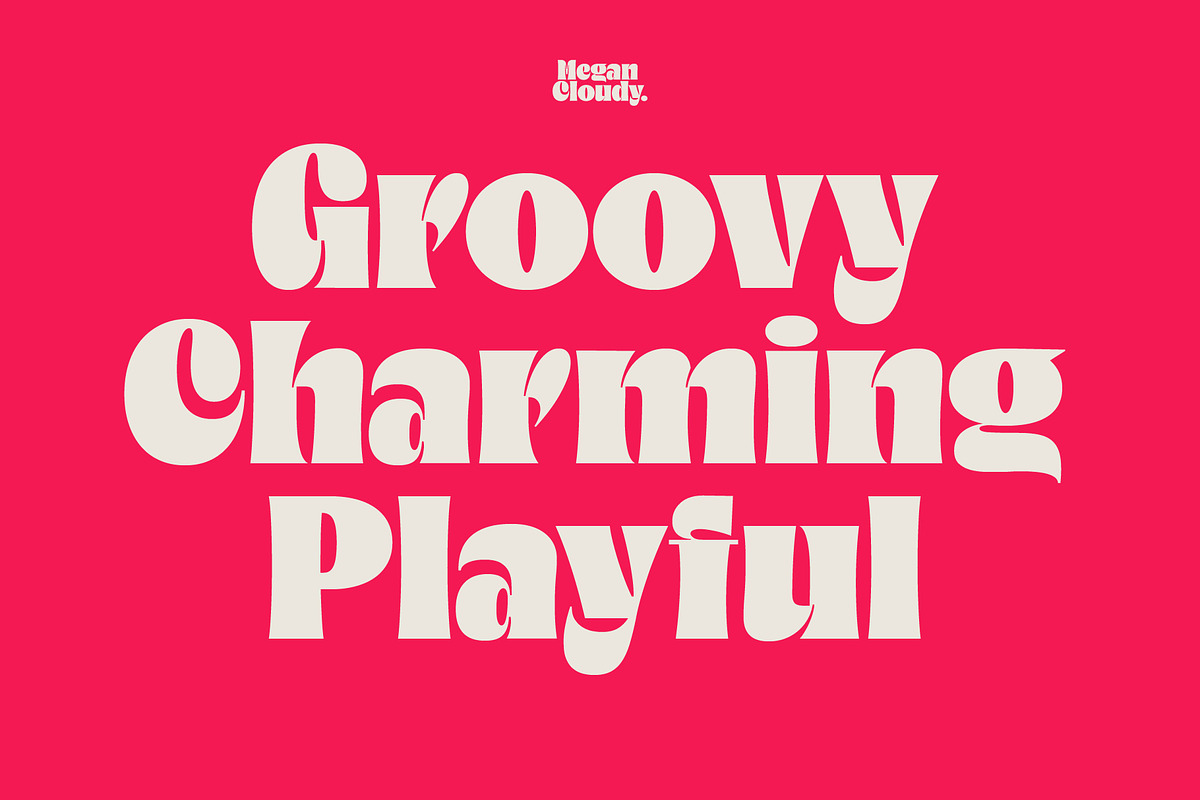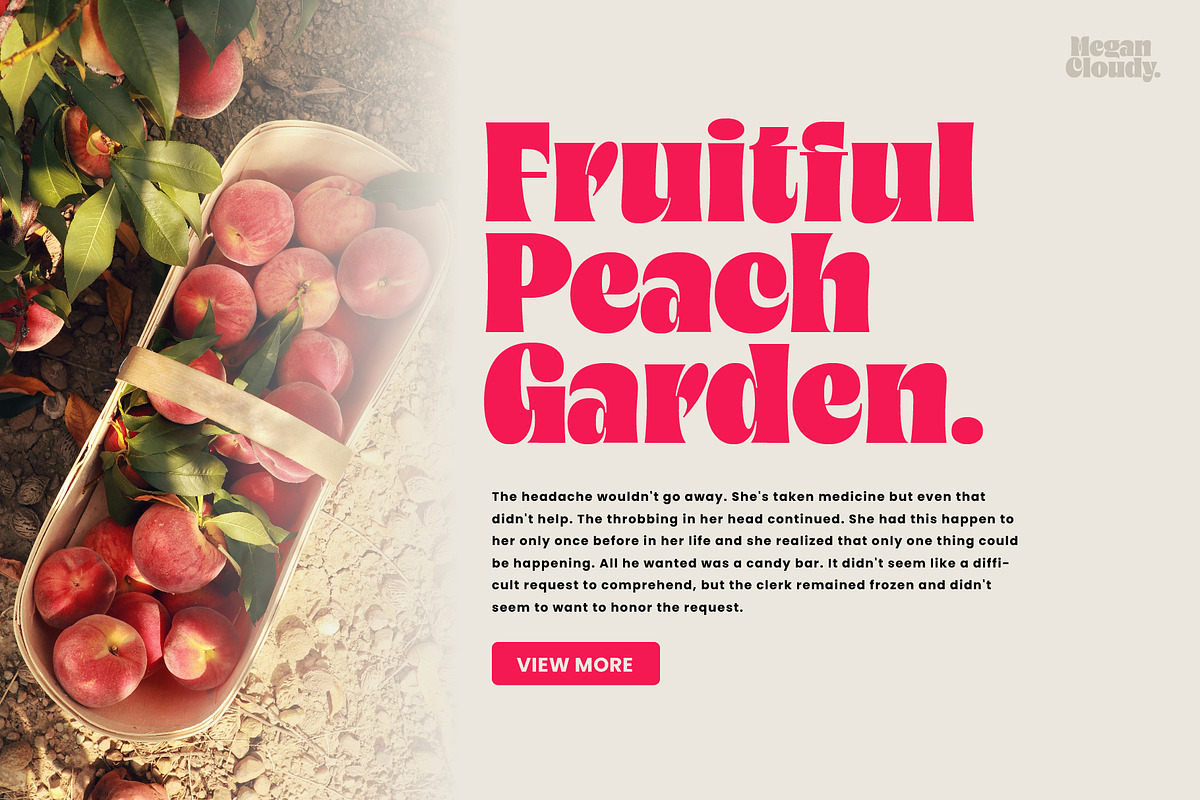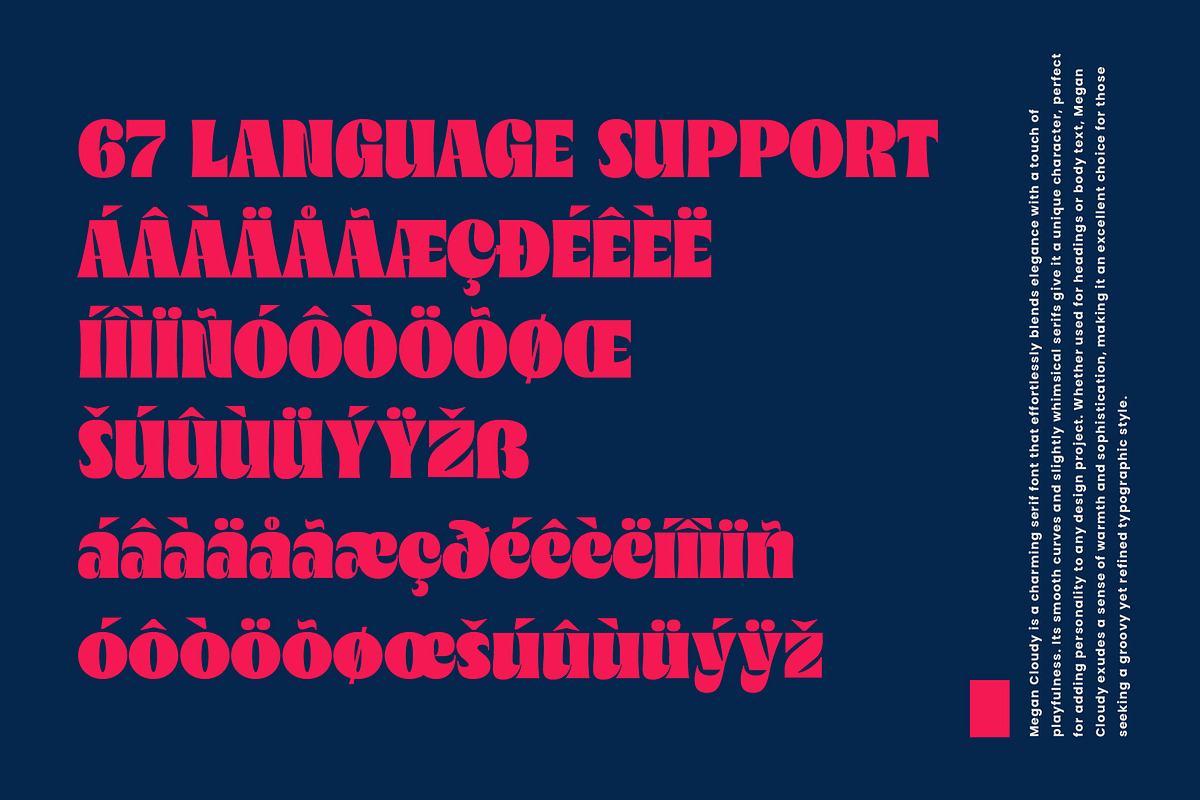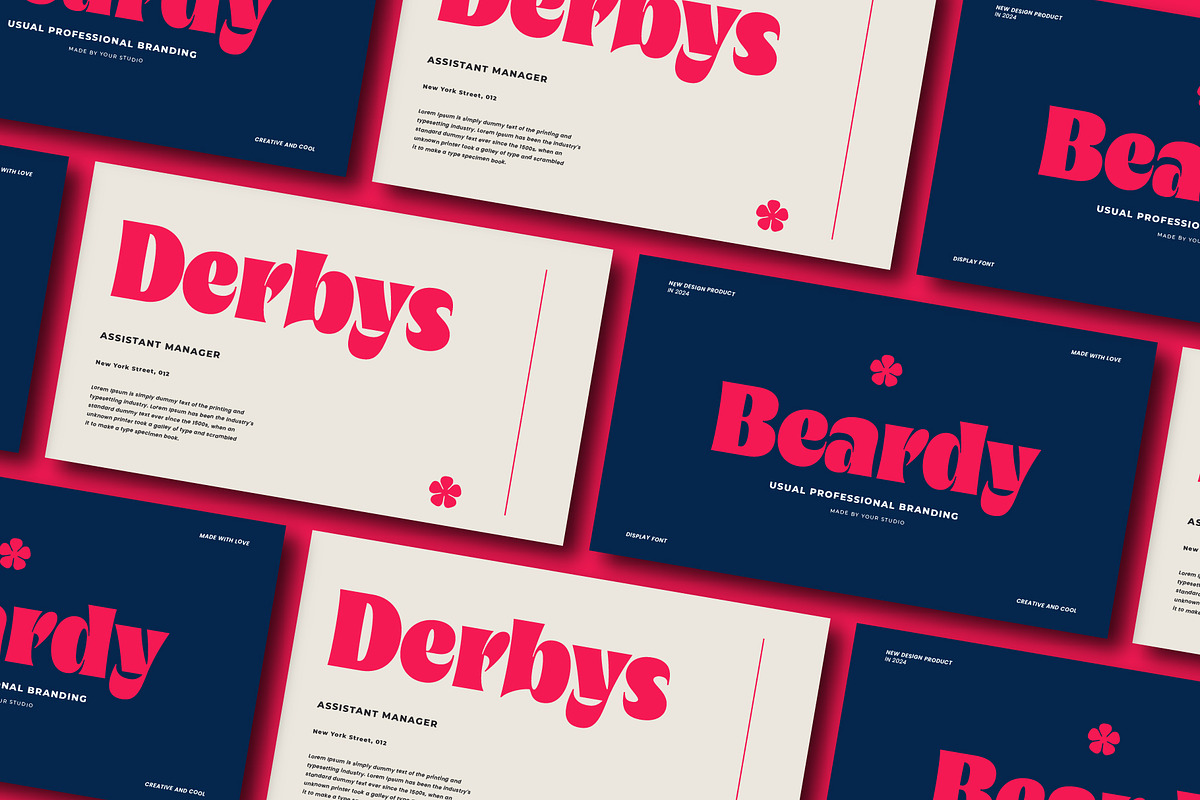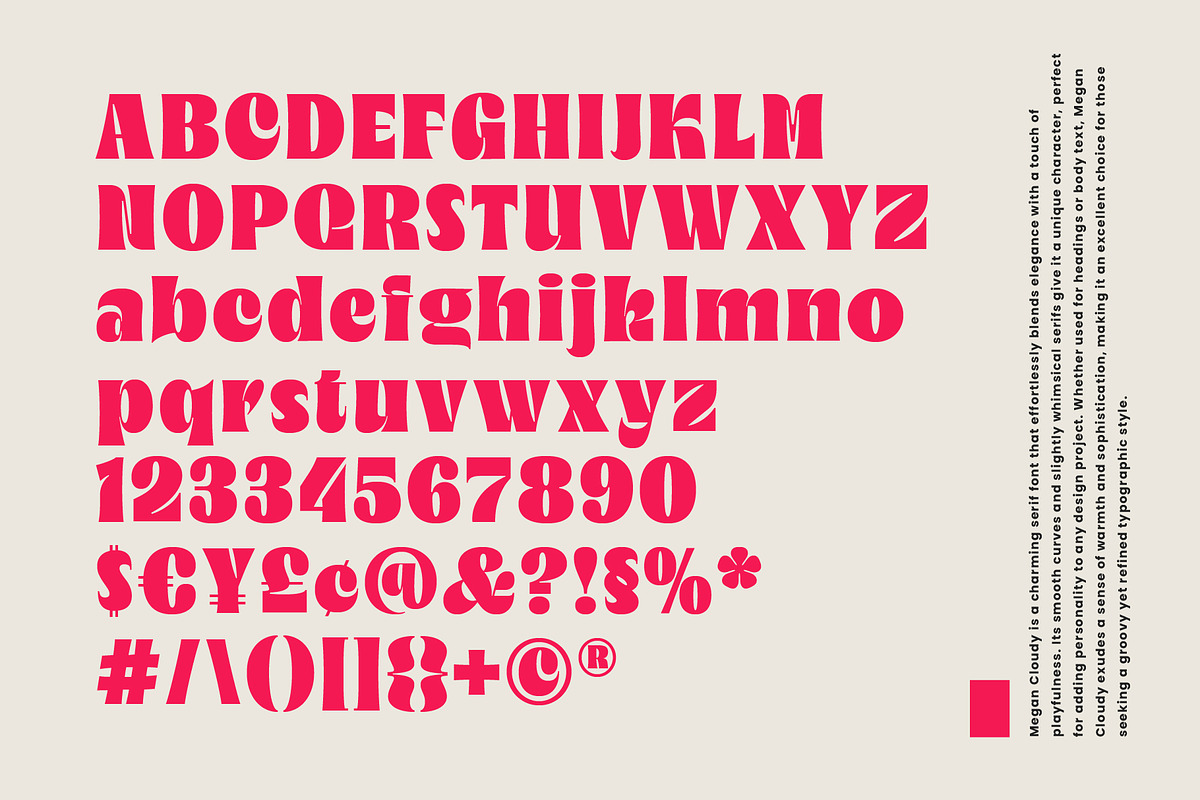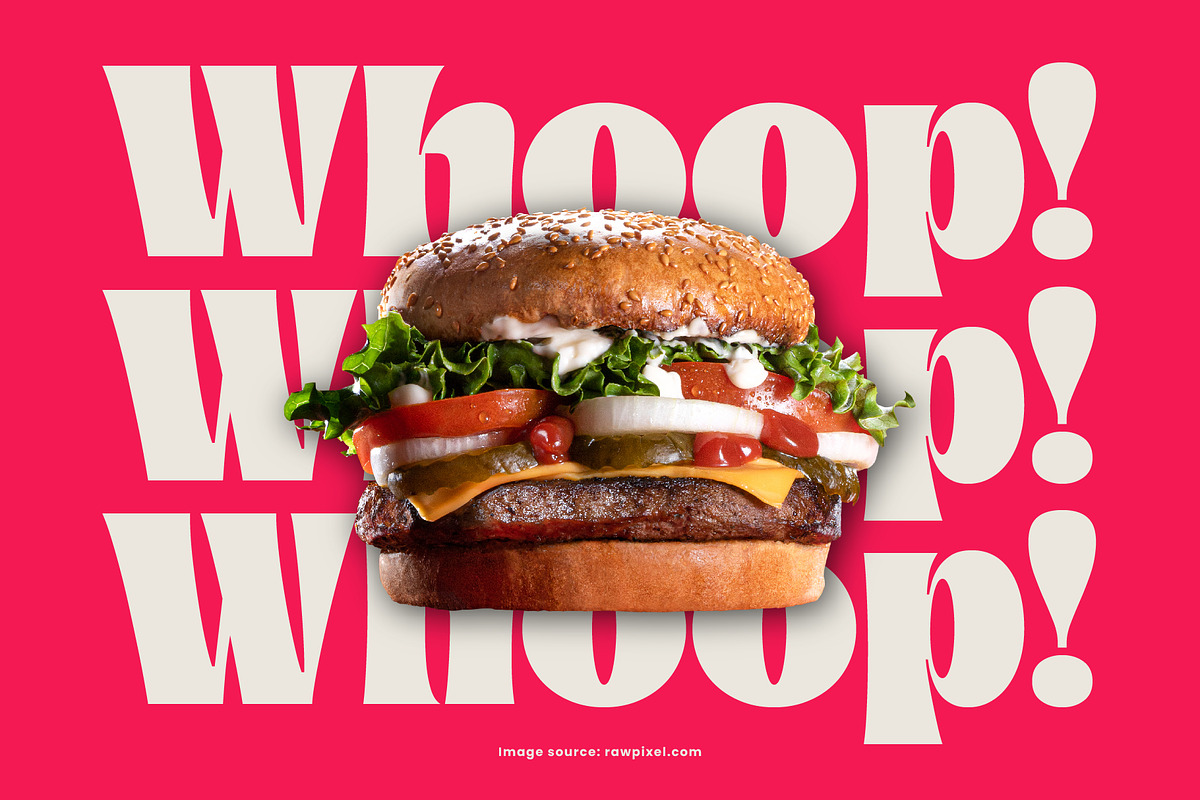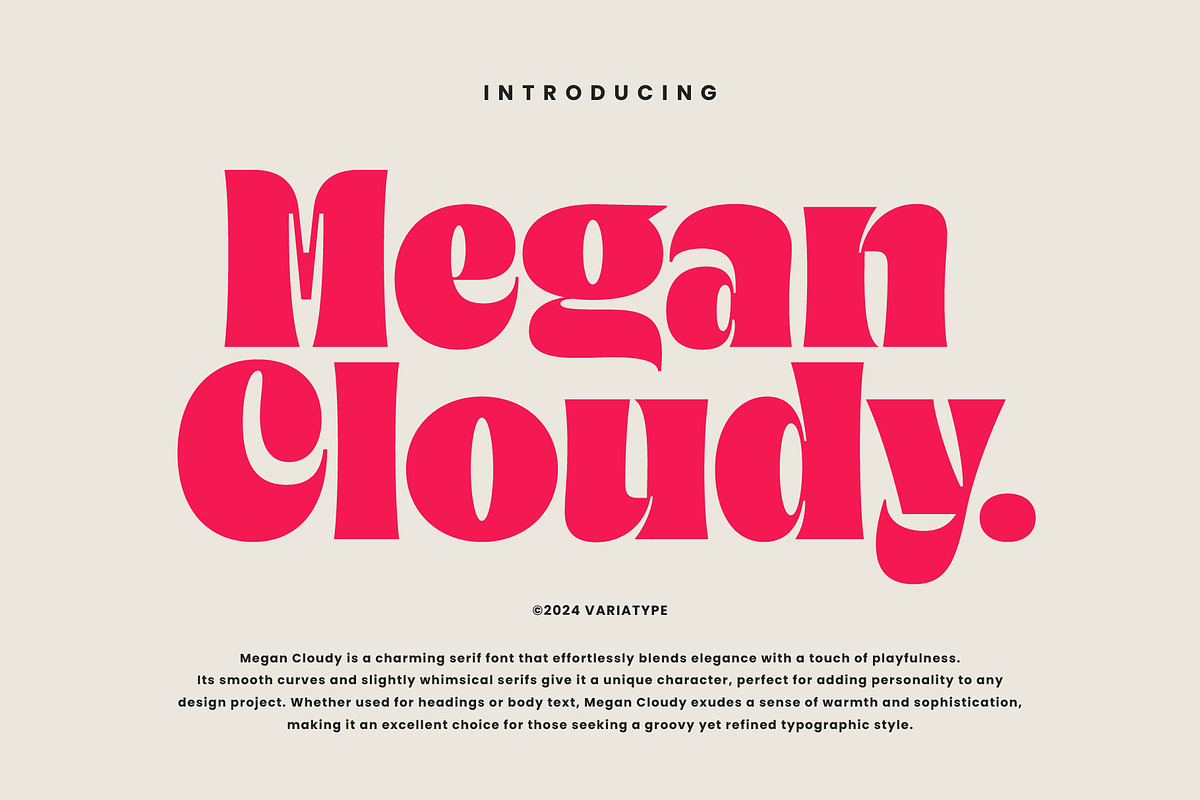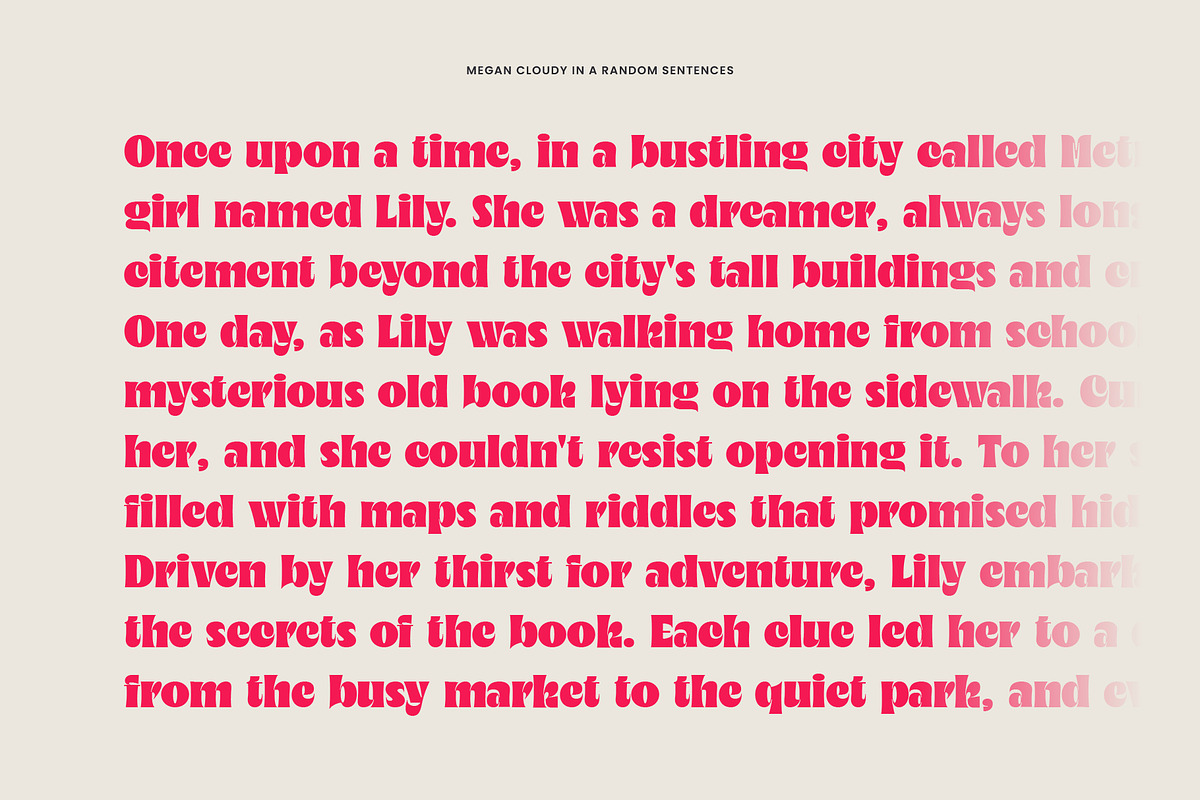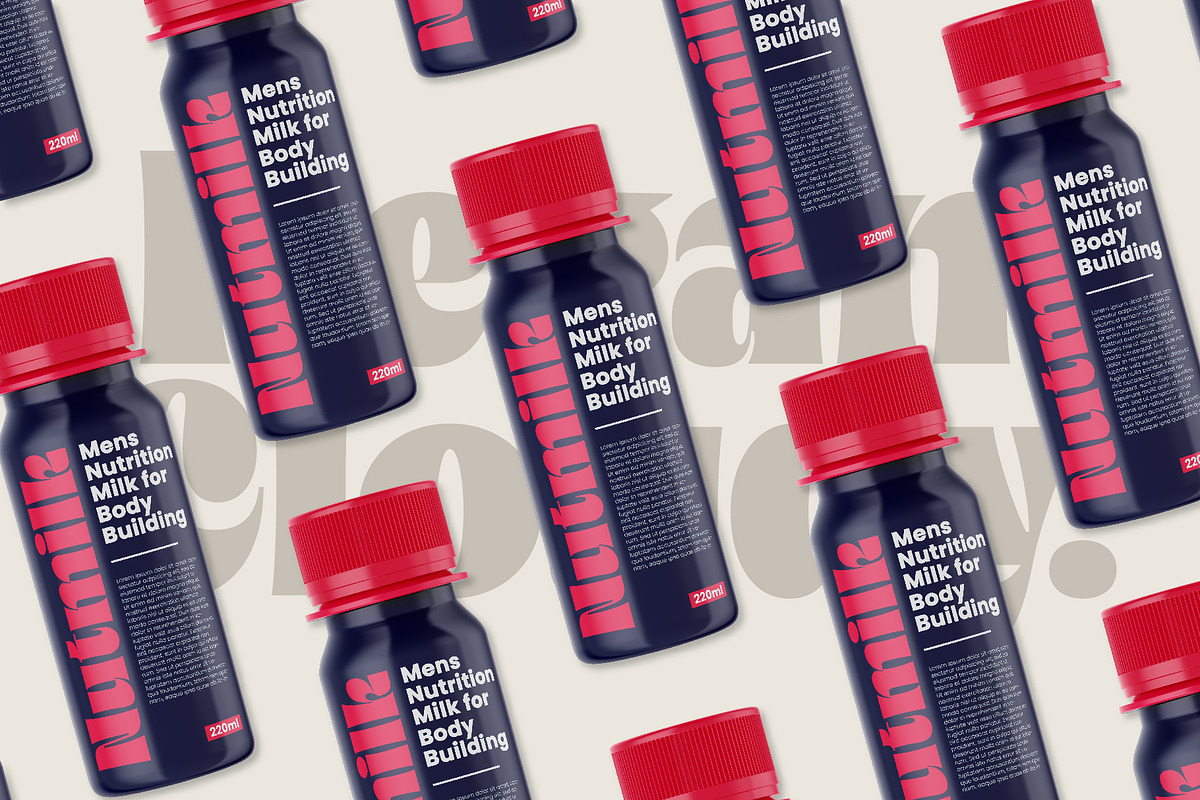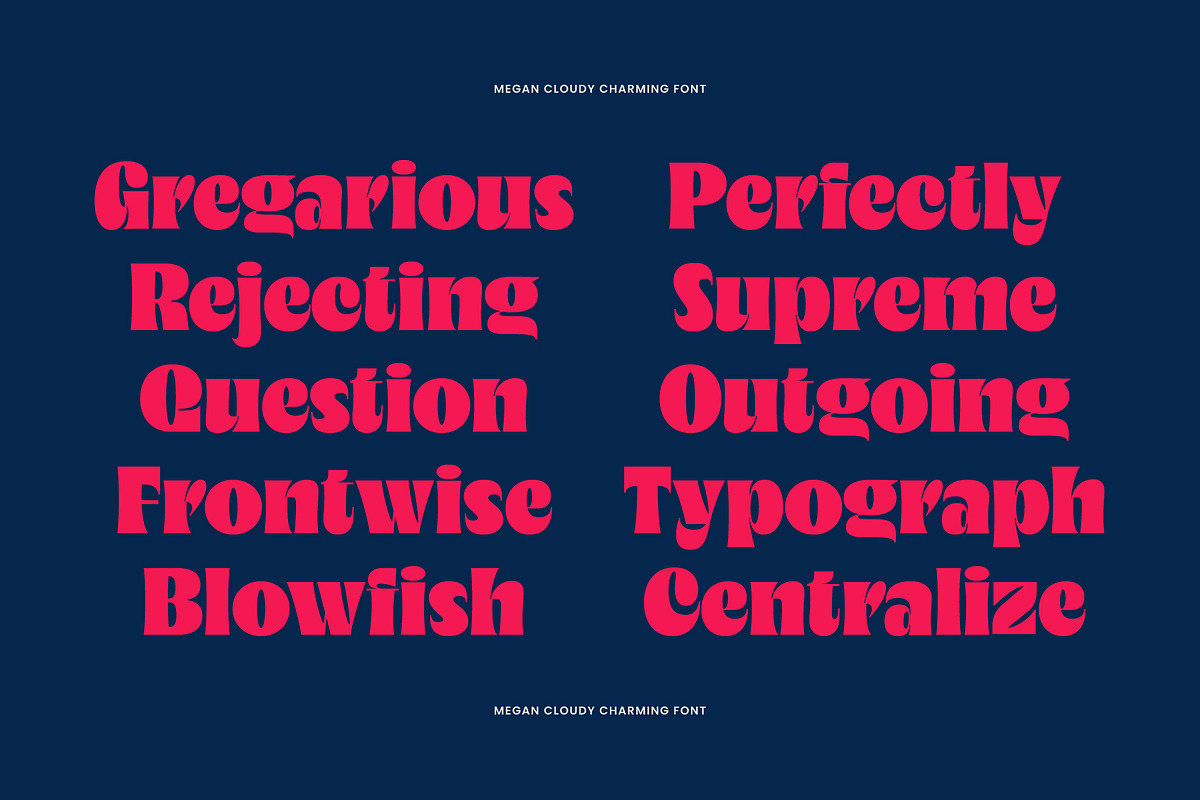
Megan Cloudy - Charming Serif
Megan Cloudy is a charming serif font that effortlessly blends elegance with a touch of playfulness. Its smooth curves and slightly whimsical serifs give it a unique character, perfect for adding personality to any design project. Whether used for headings or body text, Megan Cloudy exudes a sense of warmth and sophistication, making it an excellent choice for those seeking a groovy yet refined typographic style.